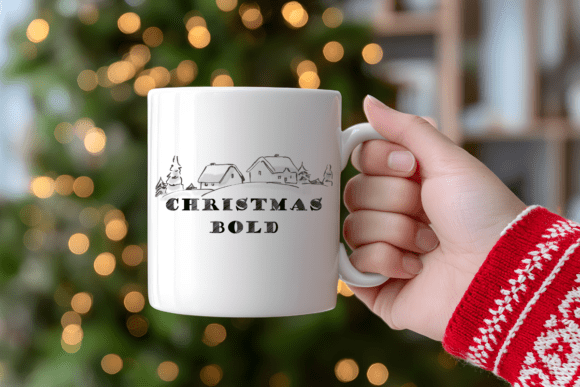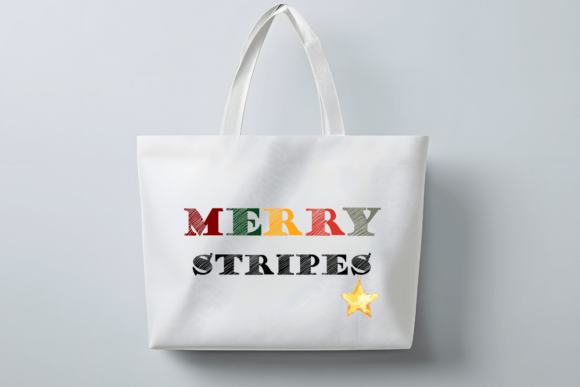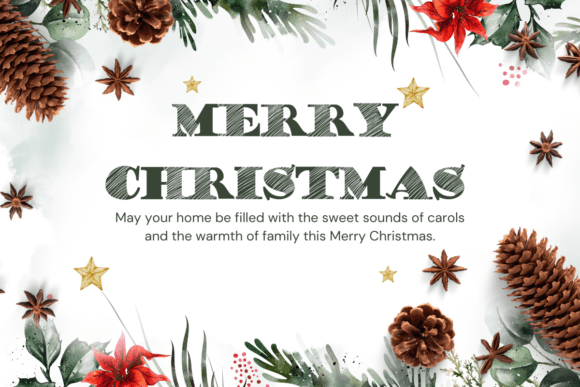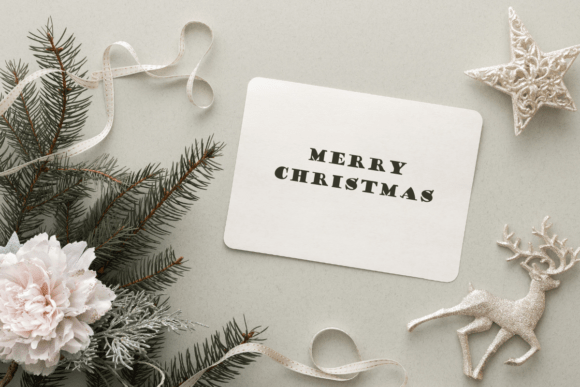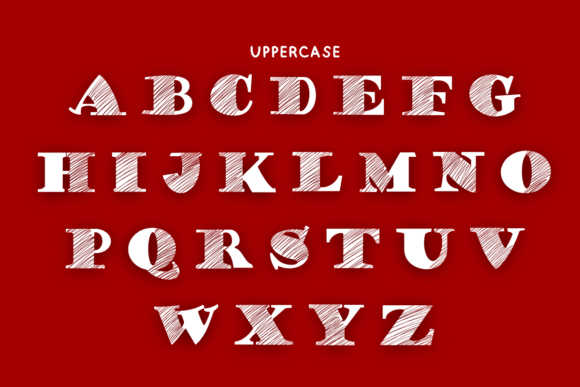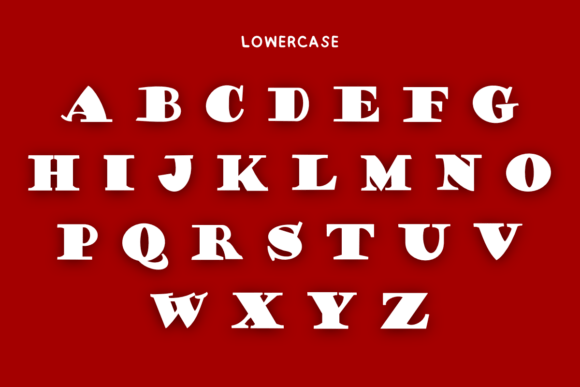
Introduction to Merry Stripes Font
Merry Stripes is a multifaceted decorative font.
Ideal for note-taking, diary entries, and greeting card creations, its flexibility knows no bounds Beyond traditional uses, unshackle your creativity and employ Merry Stripes in broader design applications.
Key Features of Merry Stripes Font